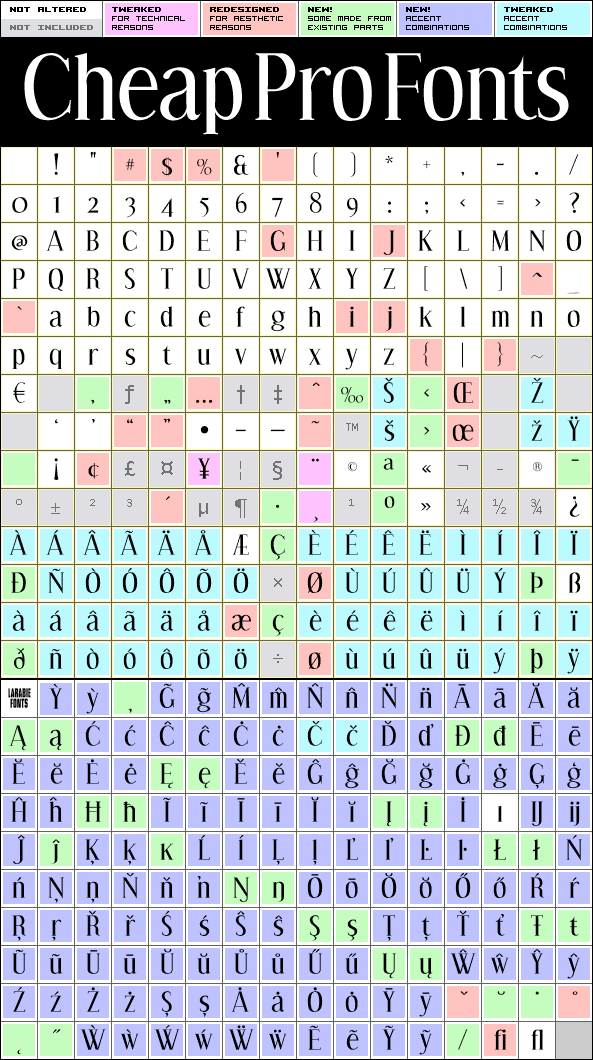
An elegant font - I have adjusted the diacritics to allow better international text setting, modified some glyphs, and added lots of new ones. Ray Larabie says: «A delicate serif font with a hand drawn appearance, reminiscent of hand painted store signs. Naïve lettering inspired by lettering on a small-town tea shop near Guelph».
Effloresce Pro is a professionally reworked font that contains an extended character set for setting of text in 65 languages requiring more than the basic A-Z!